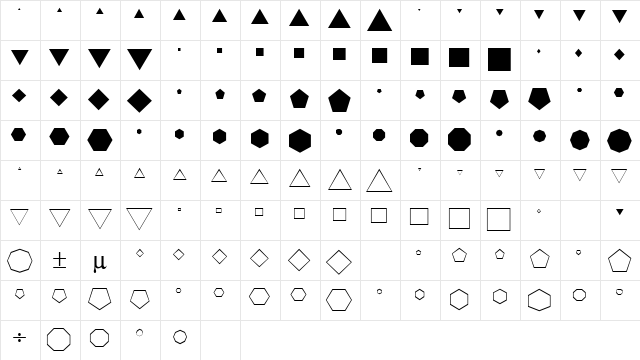
Kensington Regular Font Preview
Kensington Regular
Kensington Regular Font Details
Design Context for Kensington Typeface
Kensington takes a measured approach to typography — its balanced proportions and neutral character make it a reliable workhorse for both digital and print work.
Pro Tip: Use Kensington in both headline and body roles to test its range before committing to a single application.